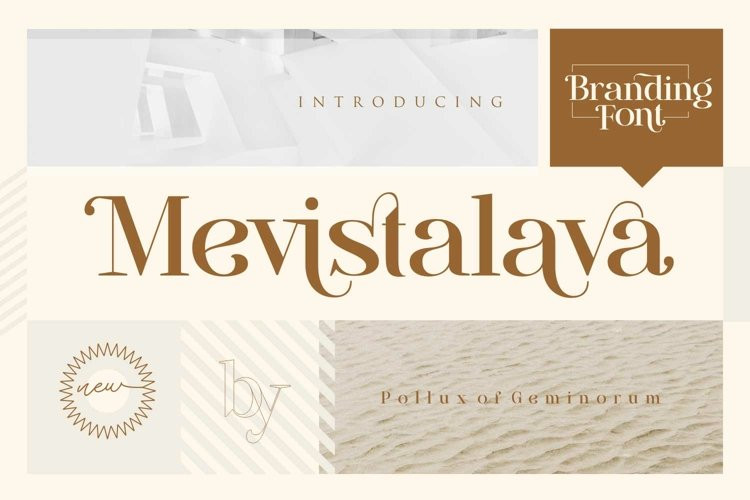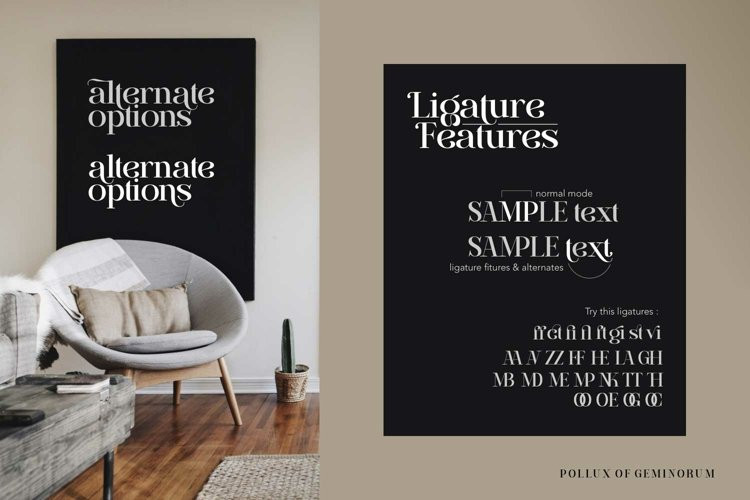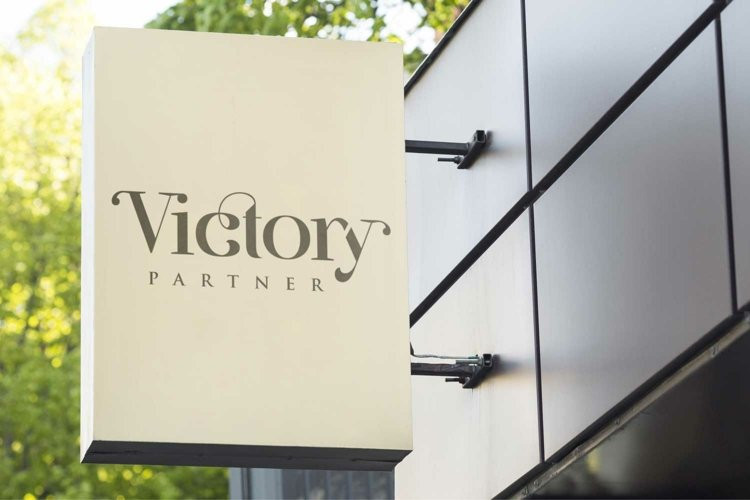
Mevistalava Font
Mevistalava FontAre you looking for a new font to help build your brand? Mevistalava is the perfect choice. Not only does it have a sleek and exclusive design, but it’s also great for making logos. This Branding font is a very original and creative font that can be used as marketing material for your promotion.